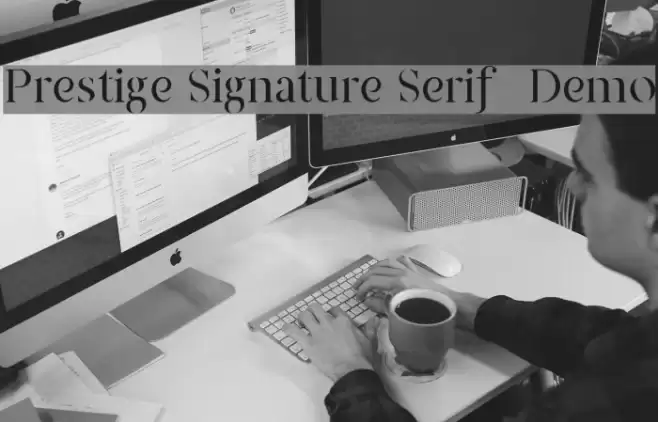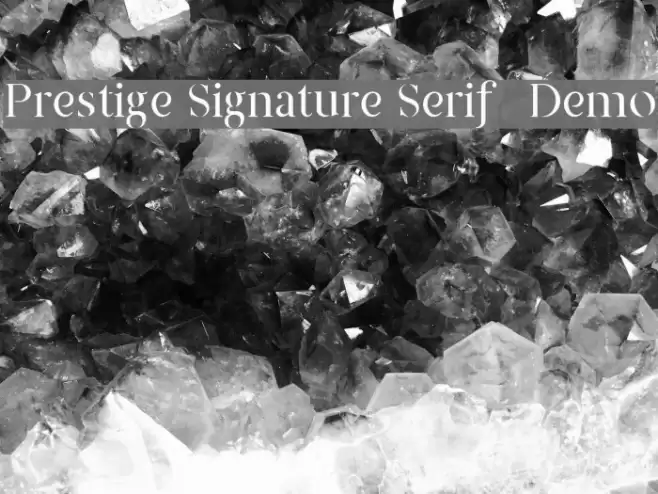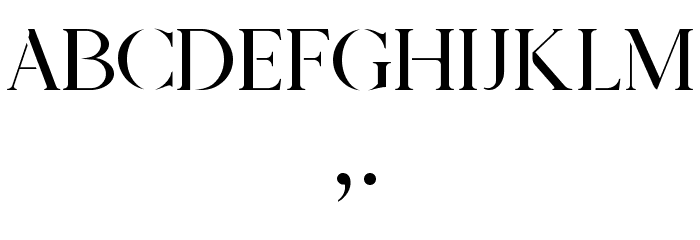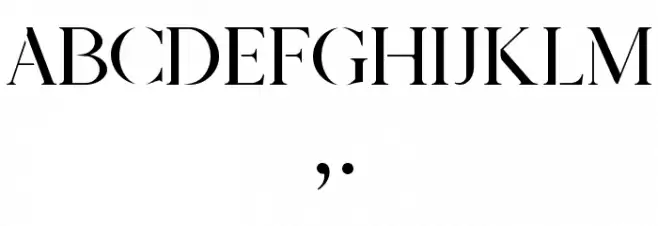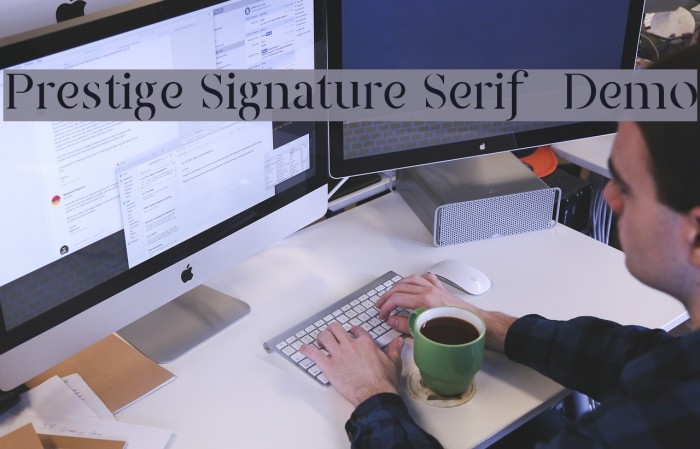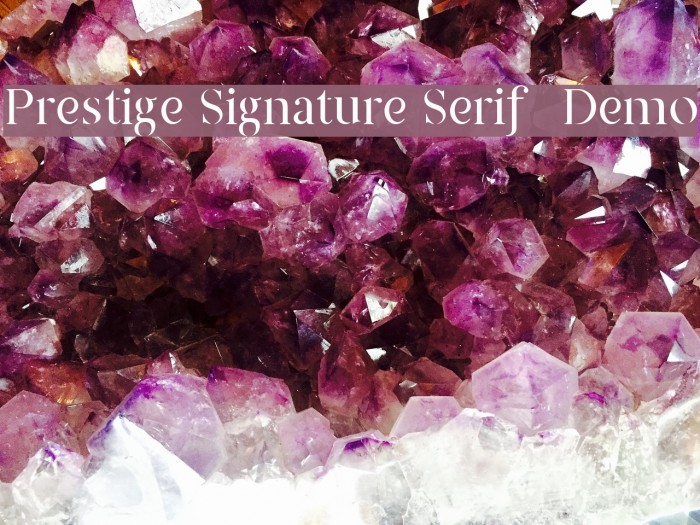
Prestige Signature Serif - Demo Font
Prestige Signature Serif - Demo Description
This font exudes a sophisticated and elegant style, characterized by its refined serif details and high contrast between thick and thin strokes. The uppercase letters are bold and commanding, while the lowercase letters maintain a graceful and fluid appearance. The overall design is reminiscent of classic typography, yet it incorporates modern elements that make it suitable for contemporary use. The spacing between characters is balanced, allowing for excellent readability. This font is perfect for projects that require a touch of class and distinction.
A sophisticated serif font with high contrast and elegant details from Uncategorized fonts.
- Proposed Projects: Ideal for luxury branding, editorial design, wedding invitations, and high-end product packaging.
- Overall Style: Classic